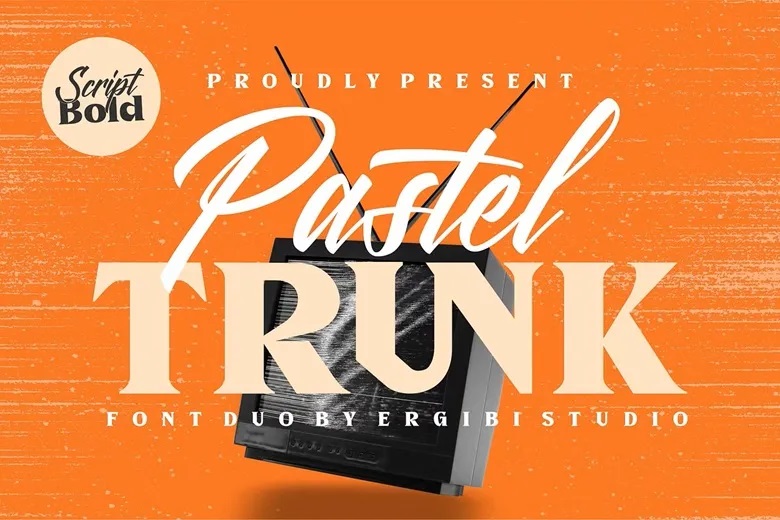
Pastel Trunk Font Duo
Pastel Trunk is a bold and expressive typeface that perfectly incorporates the nostalgic mood of retro design with a clean and modern mindset. This special combination has a dynamic retro-inspired serif and smooth handwritten script, which is designed to suit one another to the latter.
The serif is authoritative and present and the script relaxes the mood with its touch of the human, making Pastel Trunk a perfect solution to the designs that seek to be both confident and casual, classic and modern. This couple will bring you the ability to combine grace with dynamism, refined taste with fun, nostalgia with coolness.